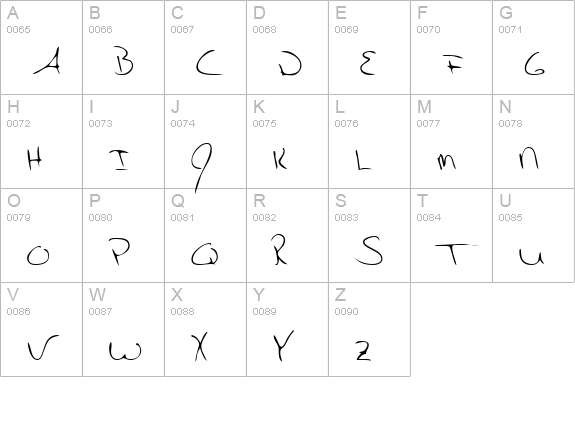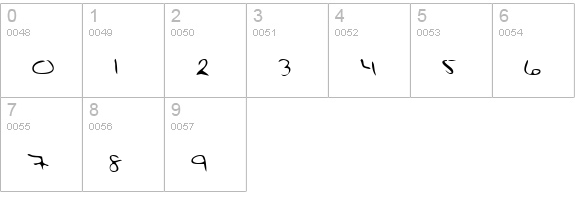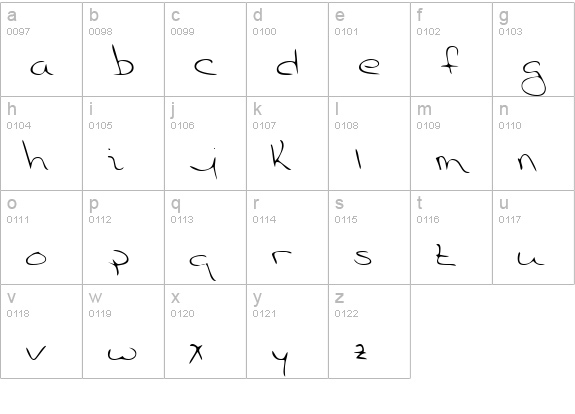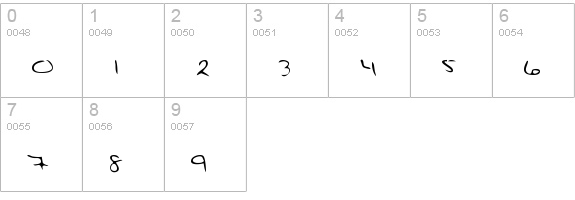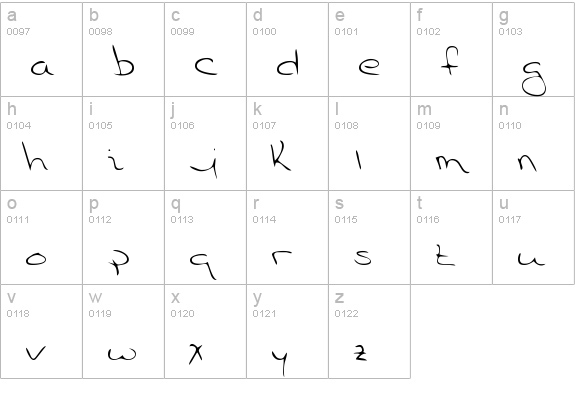
ChristinesHand Regular Font Details
ChristinesHand Regular is the standard, neutral variant in the ChristinesHand typeface family \xE2\x80\x94 well suited to general body text, paragraphs, and standard typographic work.